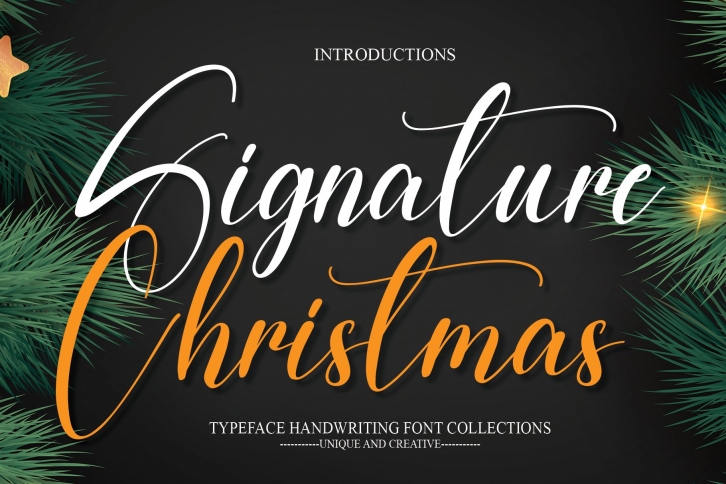
Signature Christmas is a gorgeous font that was realeased on May 11, 2022. The font can be used in many style contexts and design environments. Perfect for invitations, magazines, websites, logos, and more! It was designed by Scratchones and the file size is 3.17 MB. Thanks for checking out this font!